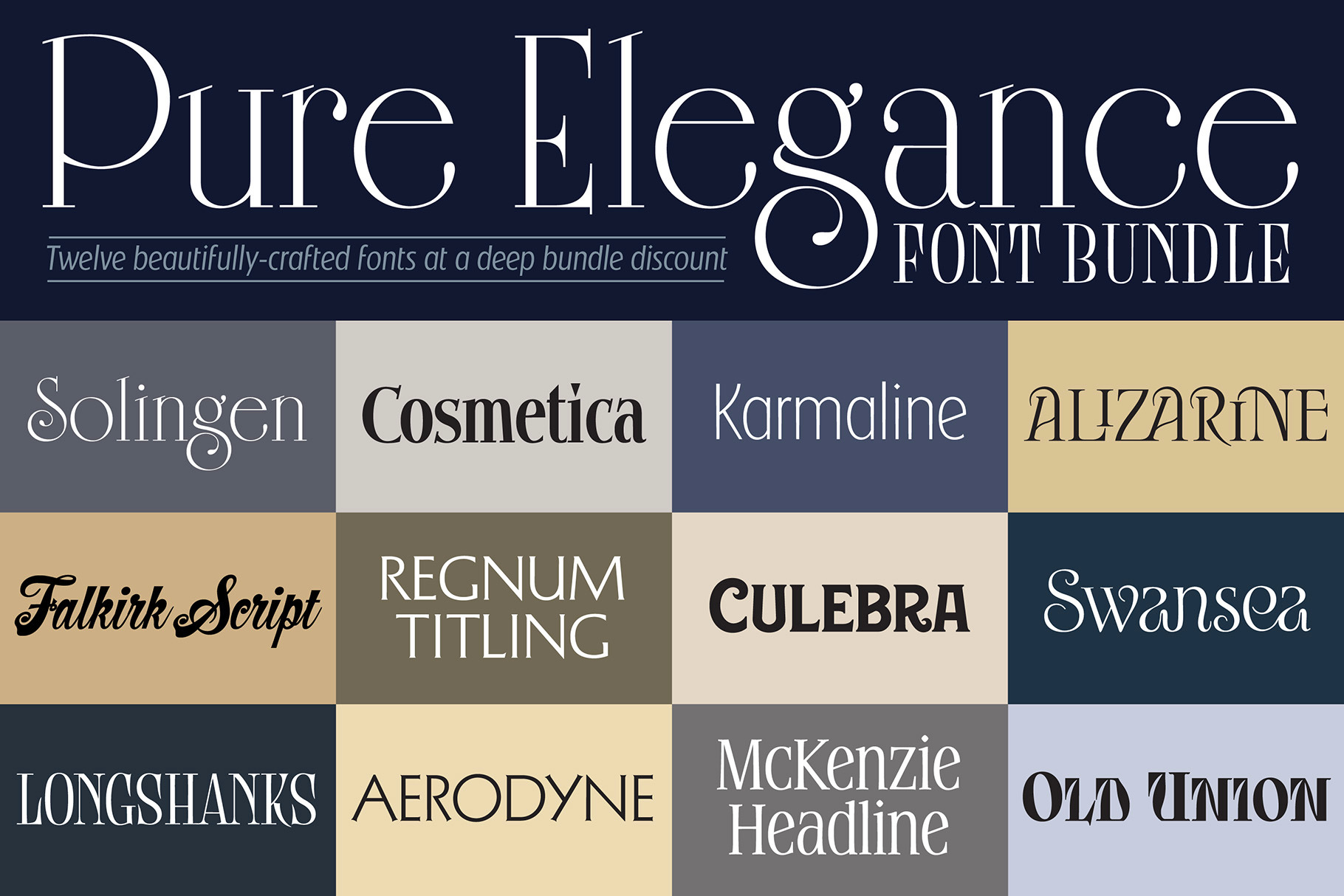
Pure Elegance Font Bundle
Here's a stellar bundle of our most elegant and highly usable fonts. These 21 fonts (representing 12 font families) will fill out your collection with an extended range of posh and classy options. All are carefully kerned and outfitted with extended foreign character sets, and a number of them feature optional ligature glyphs.
Some of these fonts are single-weight outtakes from full multi-weight font families (Aerodyne, Solingen, and Karmaline) and these full font families are available for purchase separately in this shop, if you find you need additional weight options for these designs.